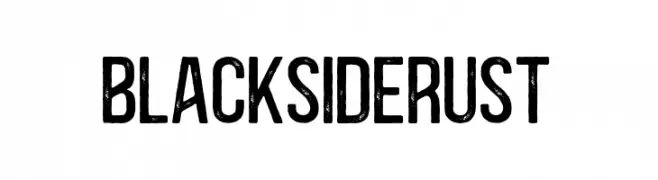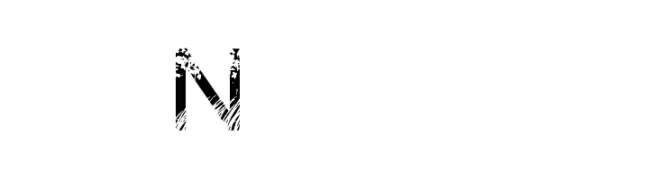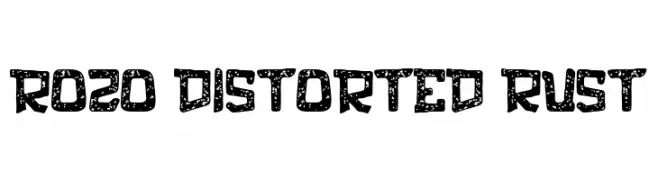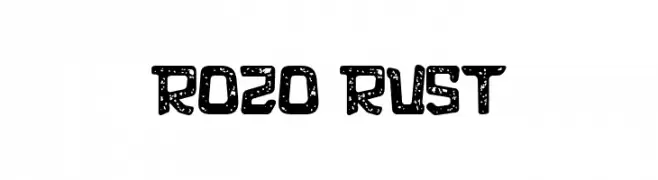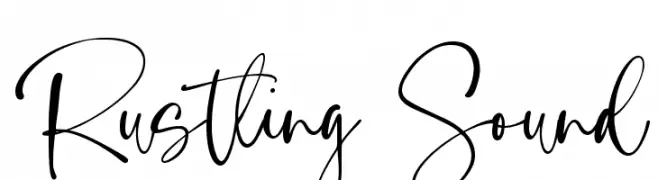
A bold, artistic font with a hand-drawn, whimsical style.
A decorative, calligraphic font with elegant swirls and artistic flair.
A bold, flame-themed font with a dynamic and energetic style.
A dynamic and expressive handwritten font with fluid, flowing letterforms.
A bold, distressed font with a rugged, vintage texture.
A bold, distressed font with a vintage, industrial aesthetic.
A textured, nature-inspired font with a rustic and organic feel.
A semi-bold script font with a grunge texture and dynamic flow.
A bold, handwritten-style font with thick strokes and dynamic energy.